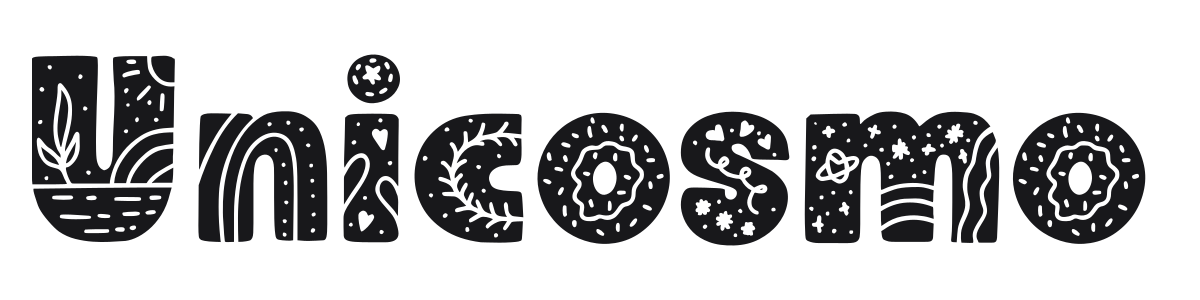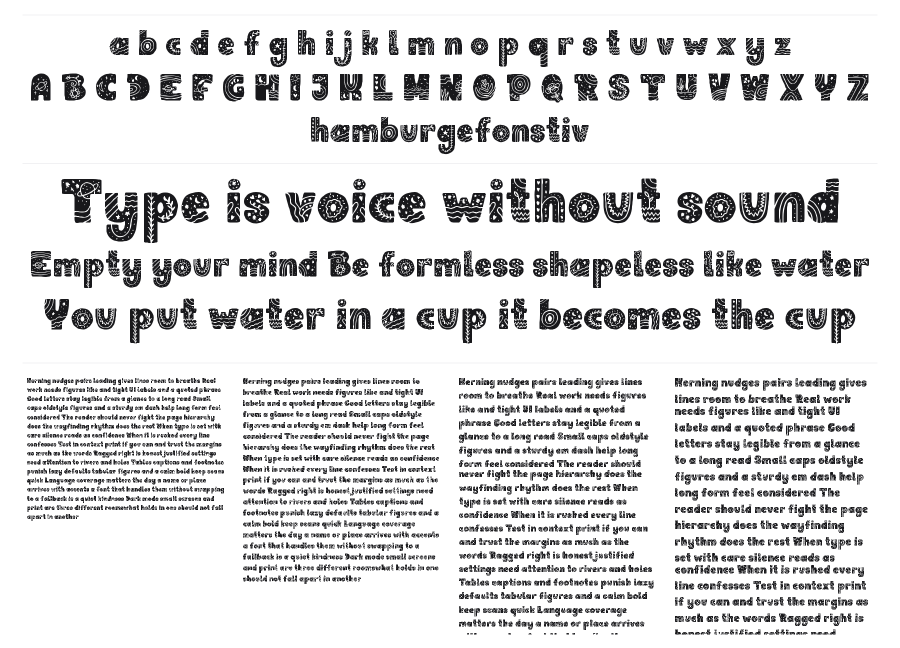
Unicosmo
Unicosmo is a bold rounded sans-serif where every character is filled with tiny hand-drawn doodle patterns, from stars and waves to hearts and geometric shapes. The chunky, friendly silhouette keeps it legible at display sizes while the internal decoration adds texture and visual richness. It works well for anything that needs warmth, personality, and a sense of handmade craft.